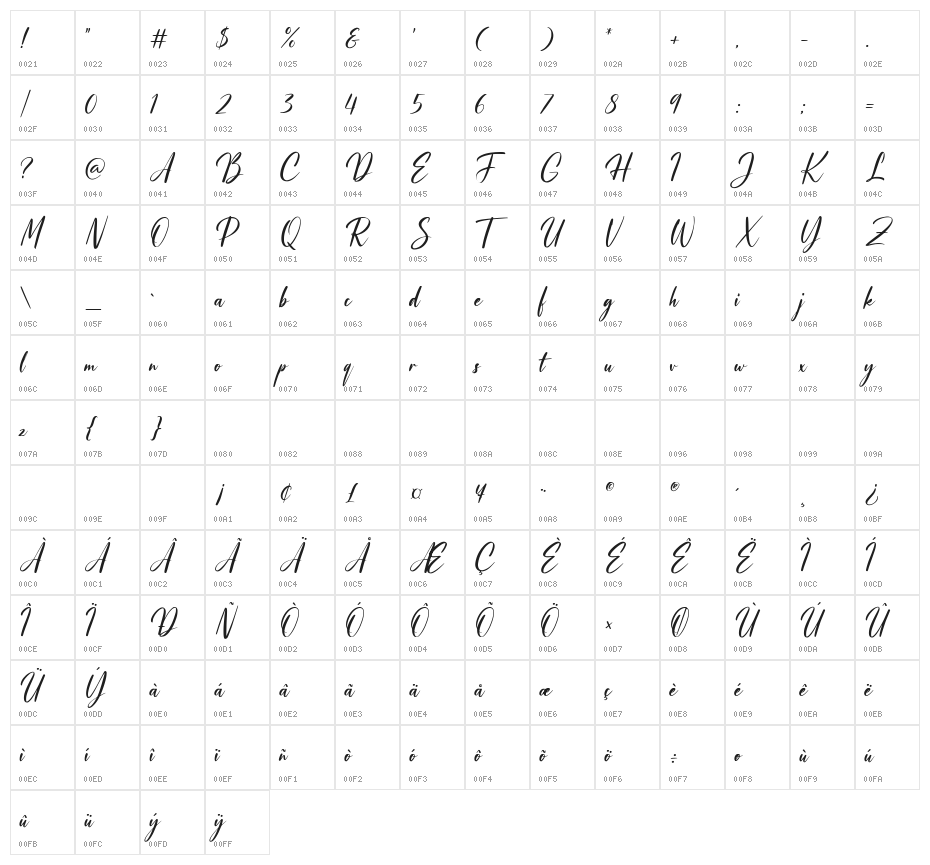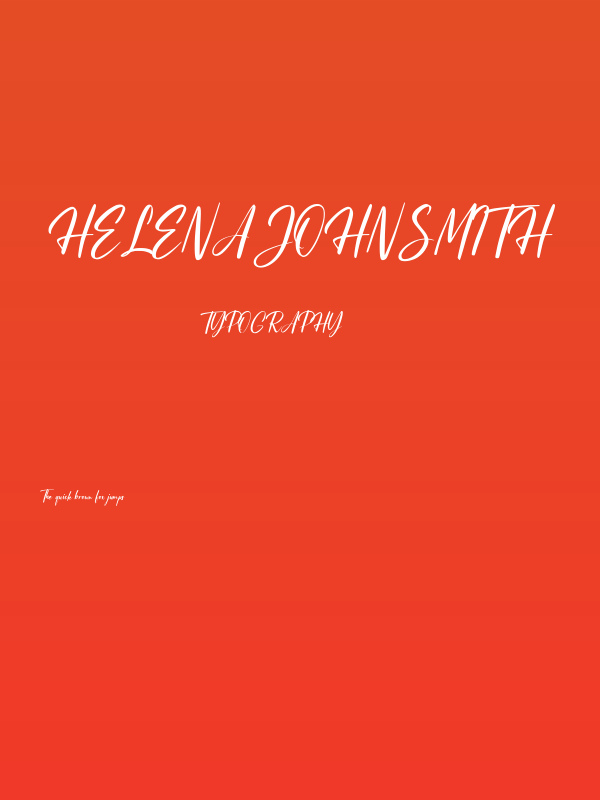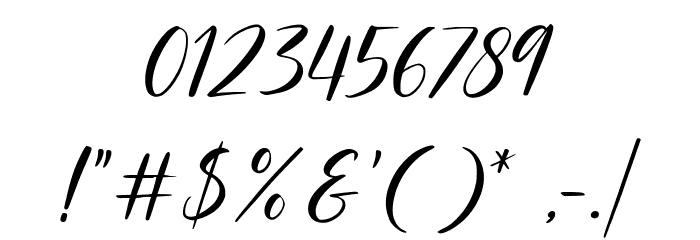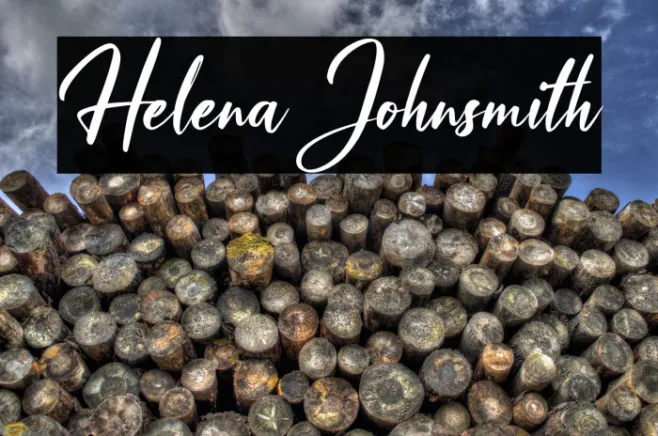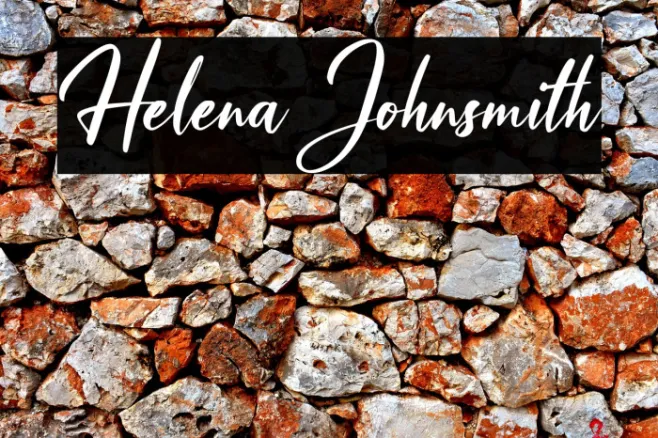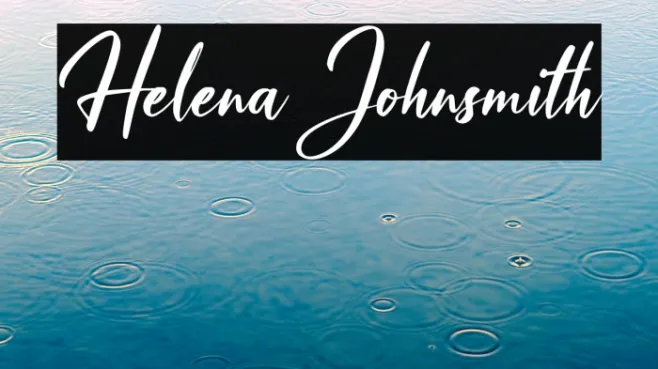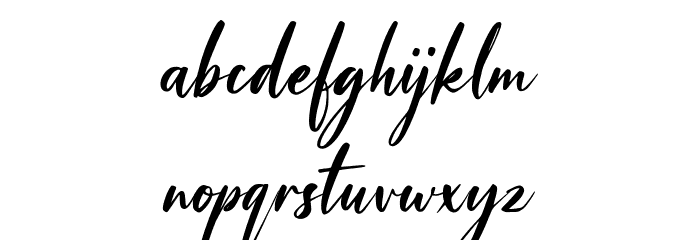
Helena Johnsmith Font
Helena Johnsmith Description
This elegant script font features a flowing, cursive style with a modern touch. The uppercase letters are characterized by their sweeping curves and dynamic strokes, giving a sense of movement and grace. The lowercase letters maintain a consistent style, with smooth connections and a slight slant that enhances readability. The numerals are designed to match the overall aesthetic, with a balanced mix of curves and straight lines. Special characters are thoughtfully integrated, maintaining the font's cohesive look. This font is ideal for projects that require a sophisticated and stylish appearance.
Helena Johnsmith